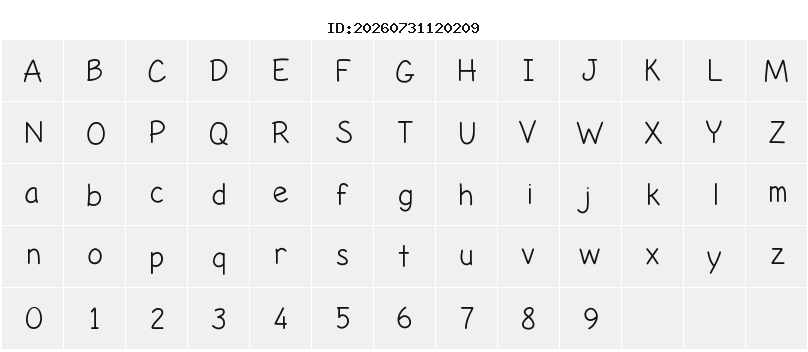
About Life's A Beach.ttf
Life's A Beach.ttf is a modern, elegant sans-serif font designed for ultimate readability and visual harmony. Perfect for branding, headlines, web design, and print materials.